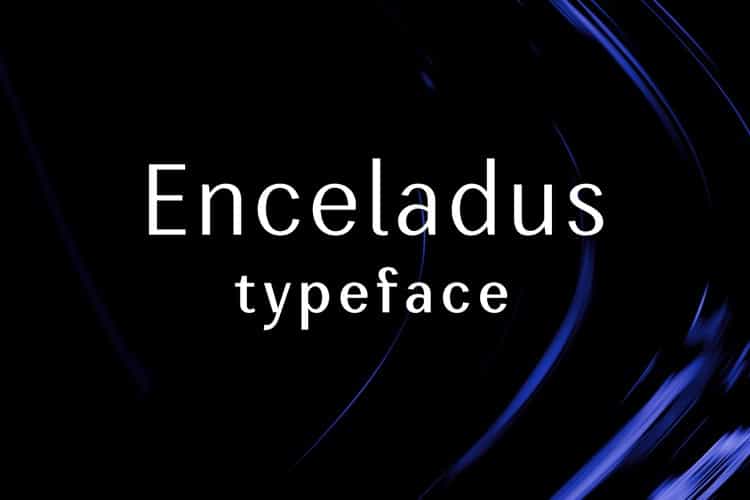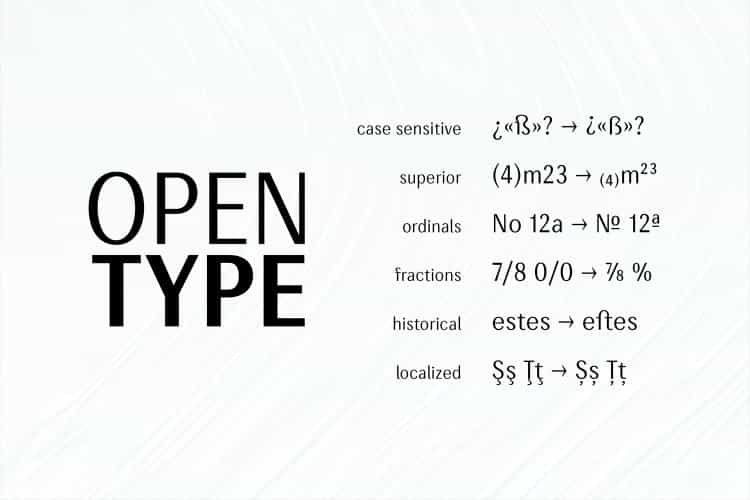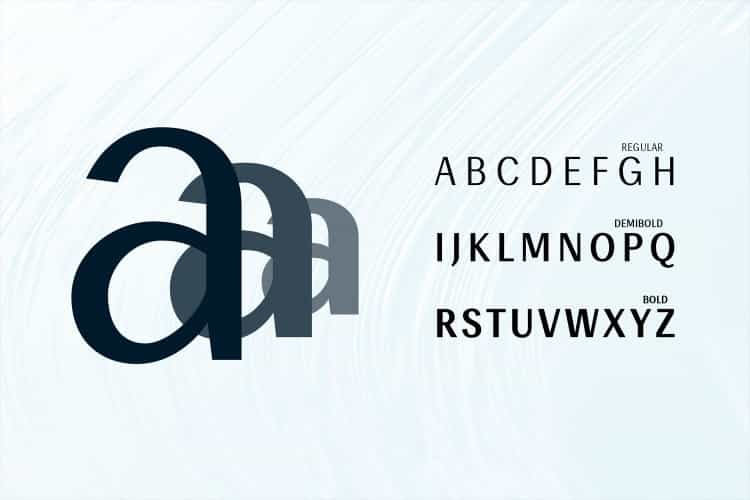
Enceladus is a sans serif typeface that has been designed to be useable in both modern and open applications. It is a bit irregular to add some character and can be used both for headers as well as body text. This font family is made up of all Latin characters (with accents), numbers, special characters and punctuation.